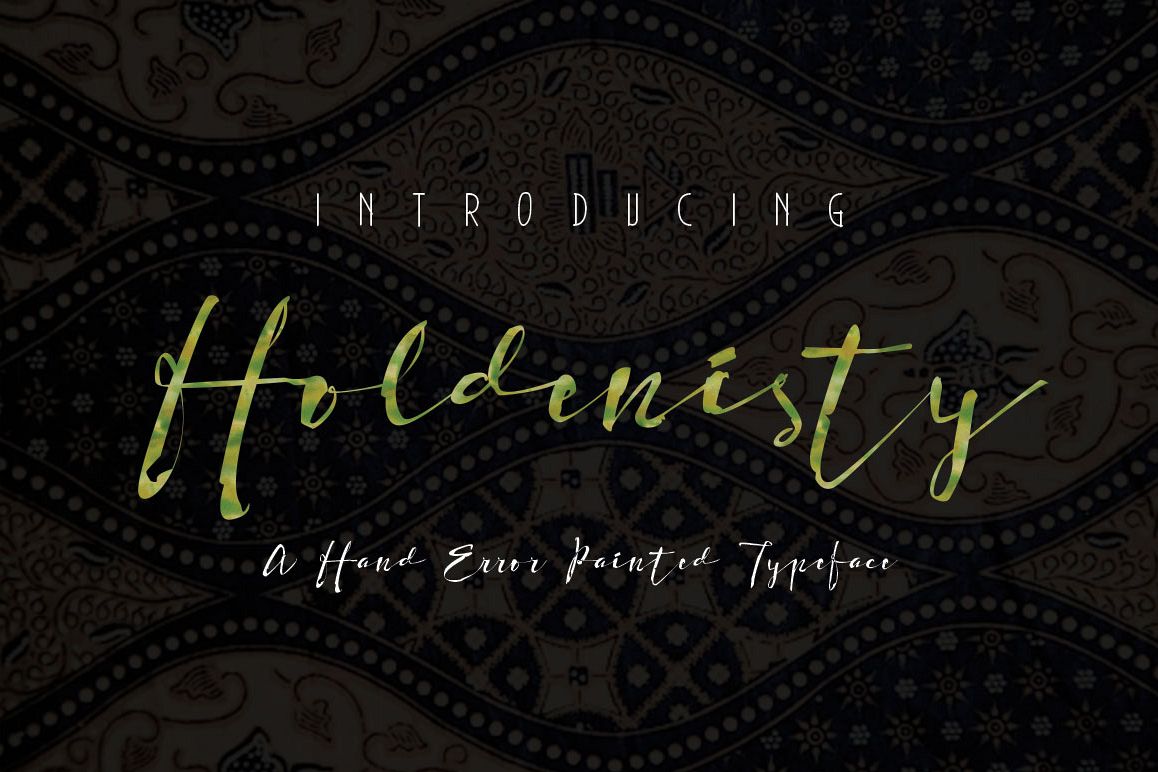
Holdenisty Typeface
Holdenisty-Regular
Holdenisty is an awesome Handwriting error style. Suitable for wedding invitations, greeting cards, design of water-based paints, correspondence, and a variety of other purposes.